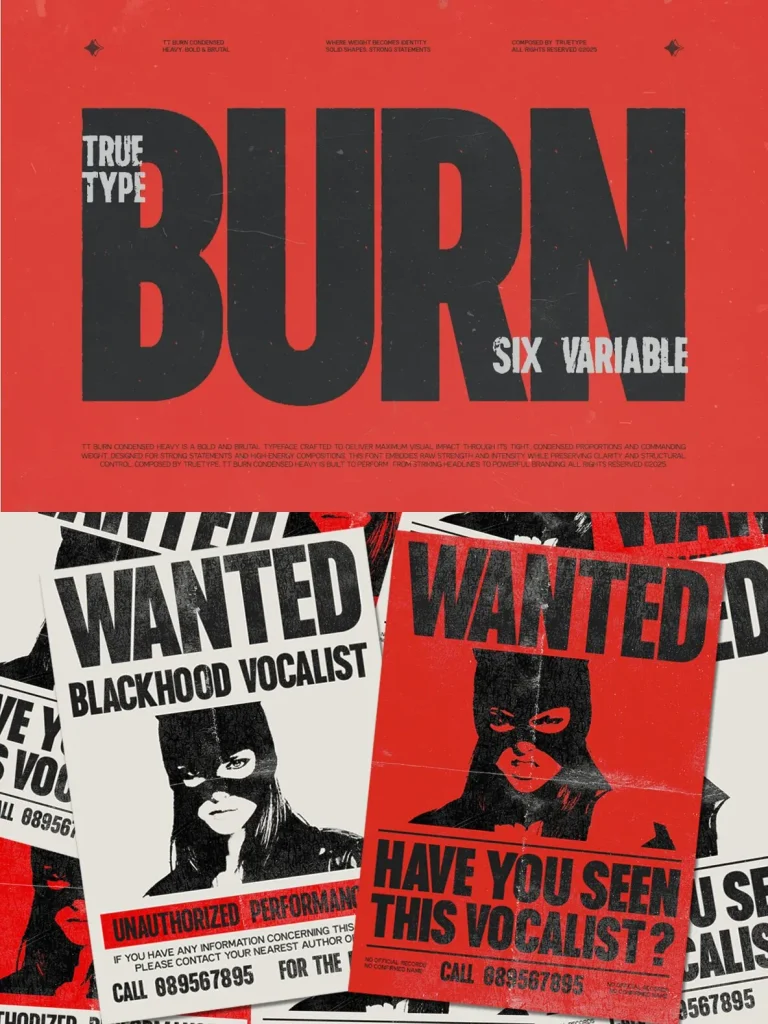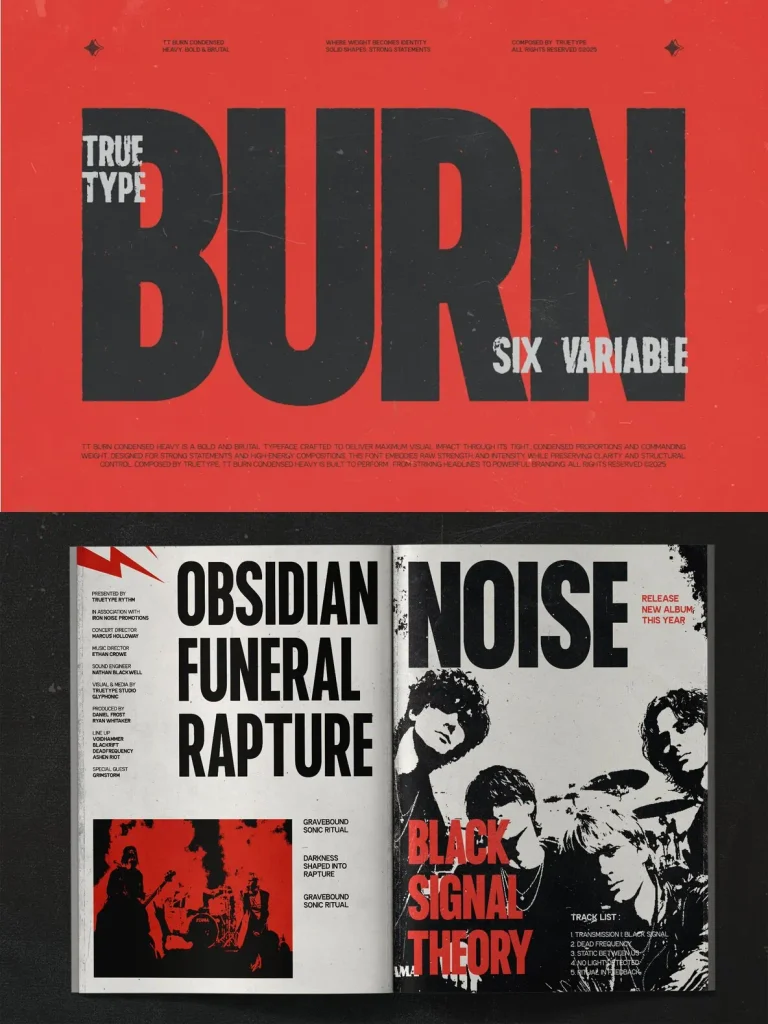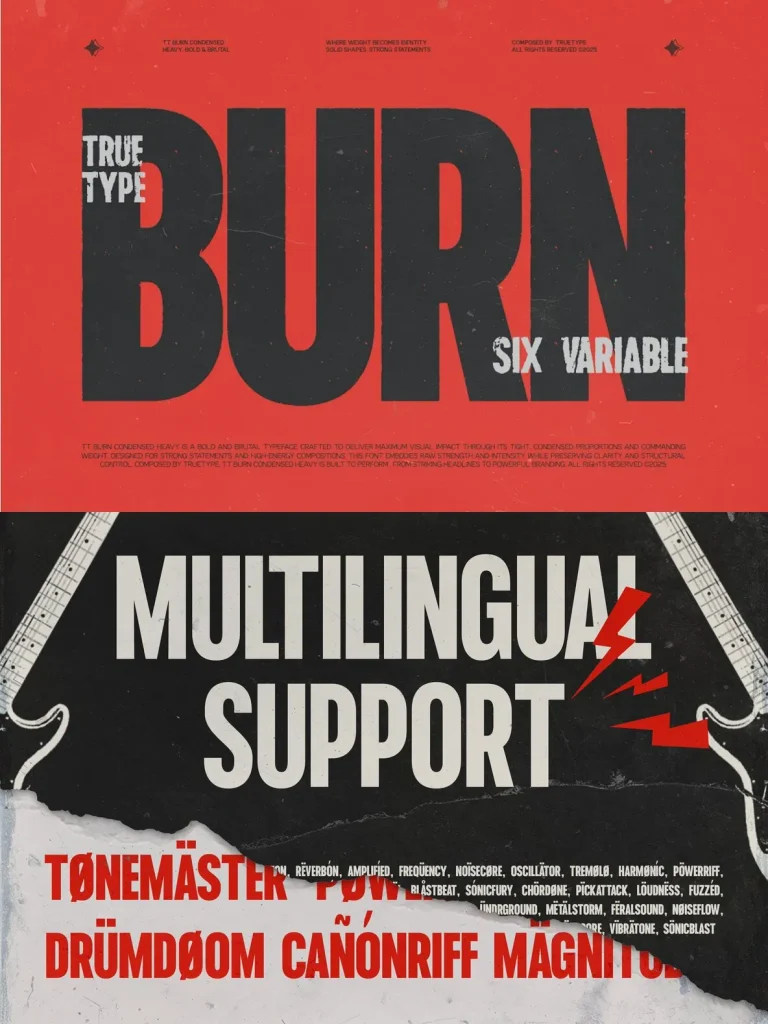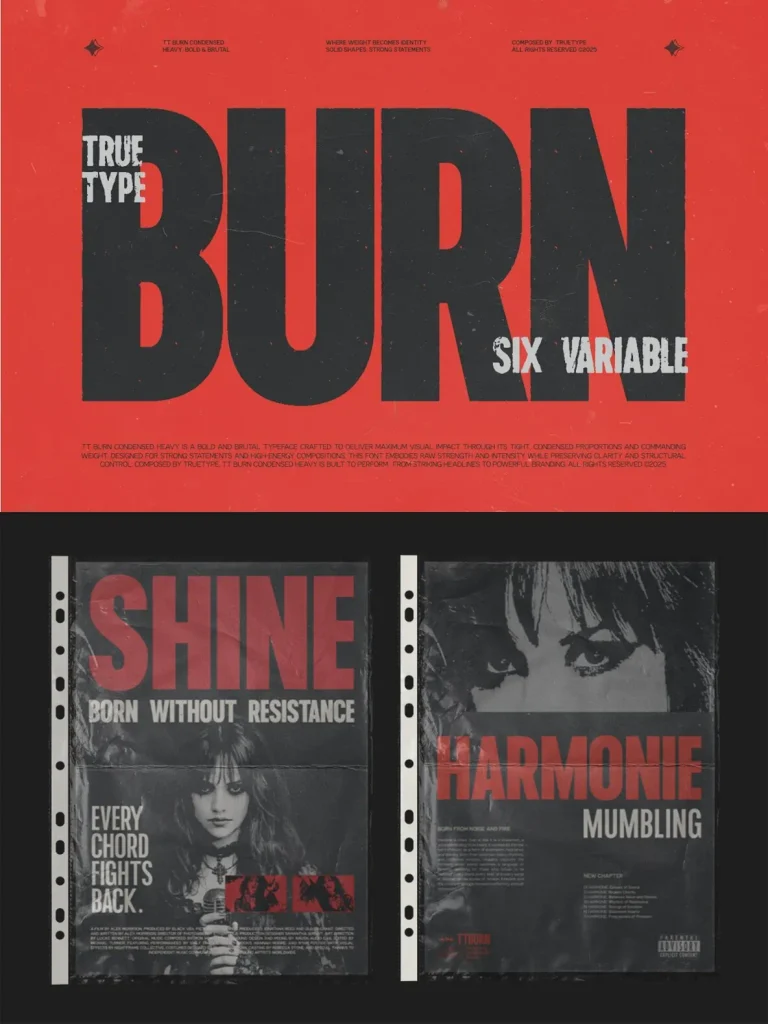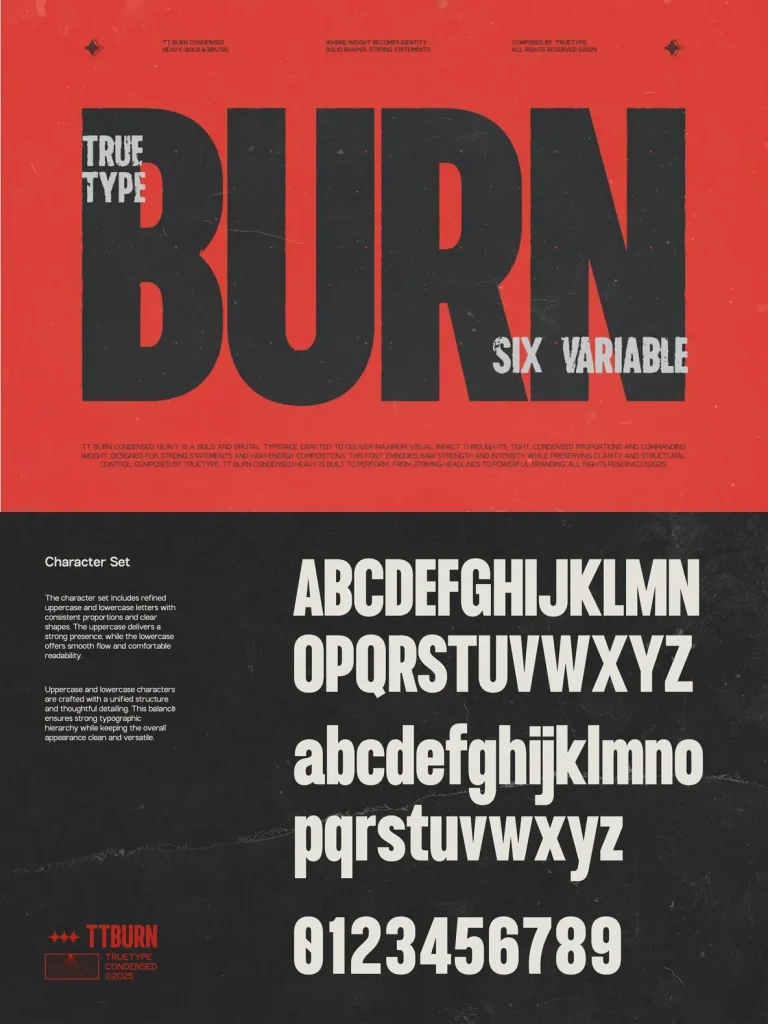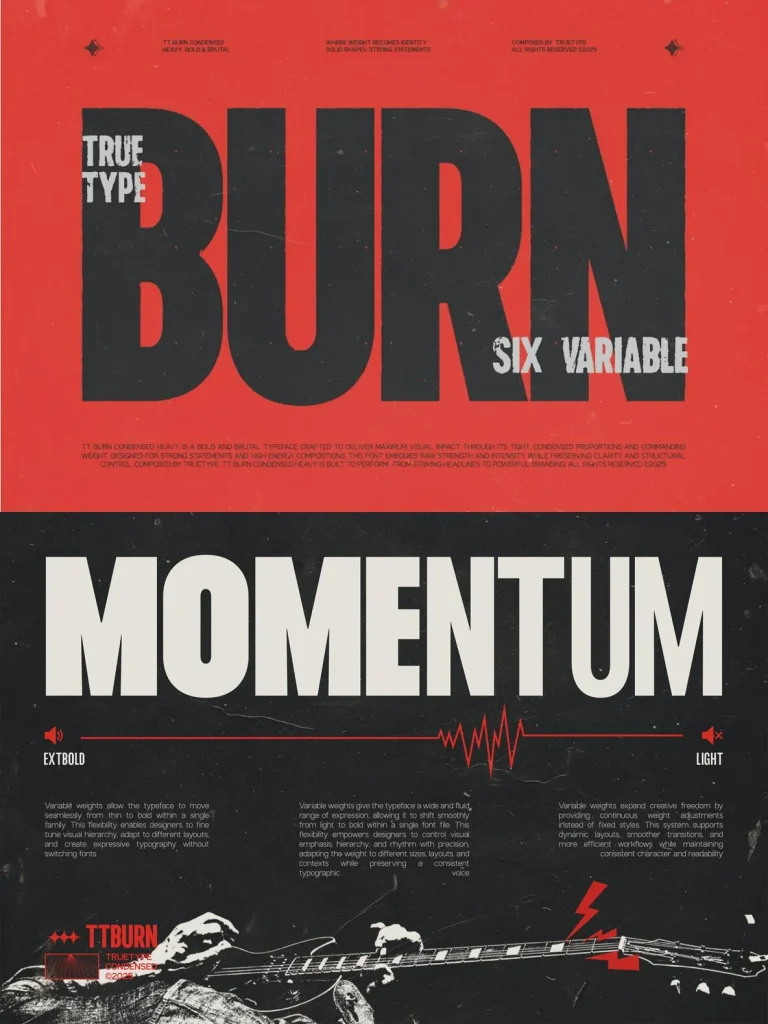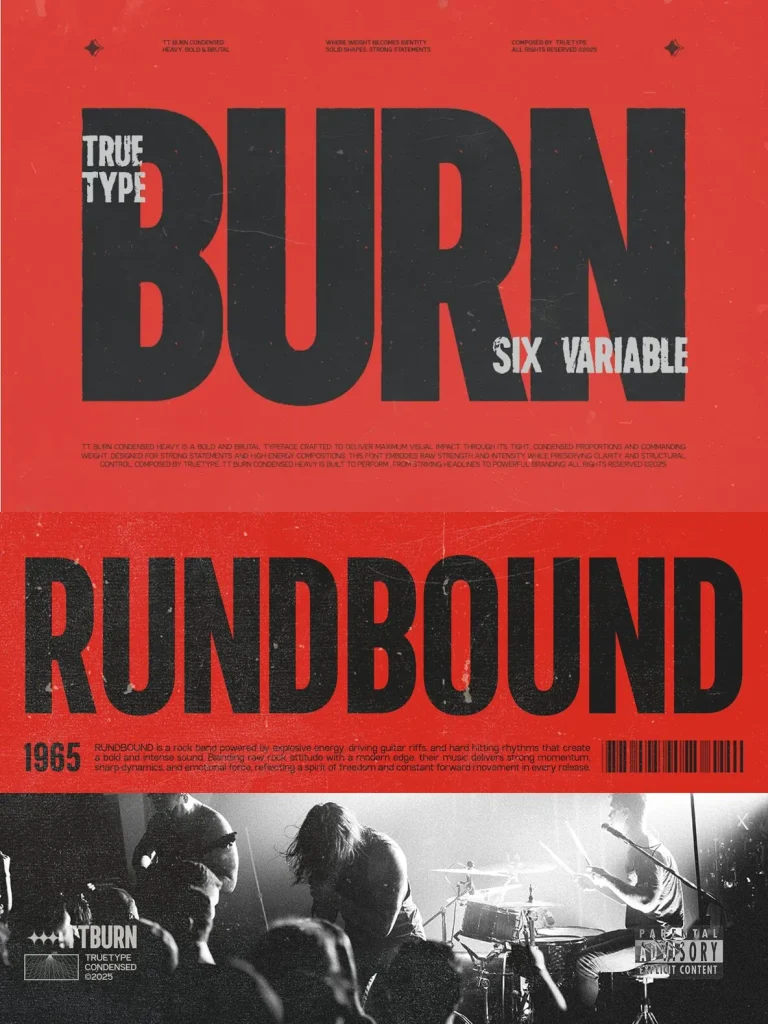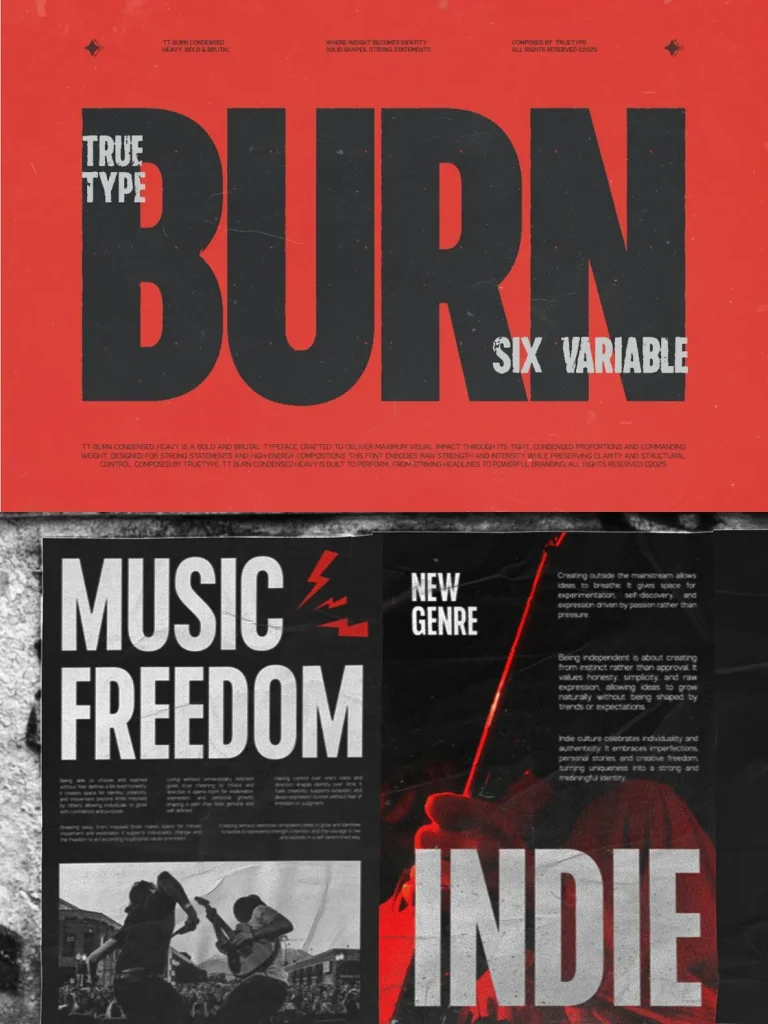
TRT Burn Font
TRT Burn: Condensed Sans Serif with Strong Visual Impact
TRT Burn is a modern condensed sans serif typeface engineered for clarity and efficiency in contemporary design. Its compact width and confident vertical proportions suit branding, headlines, and layouts that require a commanding presence without added bulk.
The typeface’s condensed structure enables designers to place more content within limited space without sacrificing legibility. Its balanced stroke contrast and refined geometry create a clean, professional tone that works equally well in display and functional text settings.
Designed as a versatile typographic system, TRT Burn adapts seamlessly to branding, editorial design, advertising, posters, packaging, web interfaces, UI design, and digital products. It lends a focused, reliable voice to both bold headlines and structured brand identities across print and digital media.